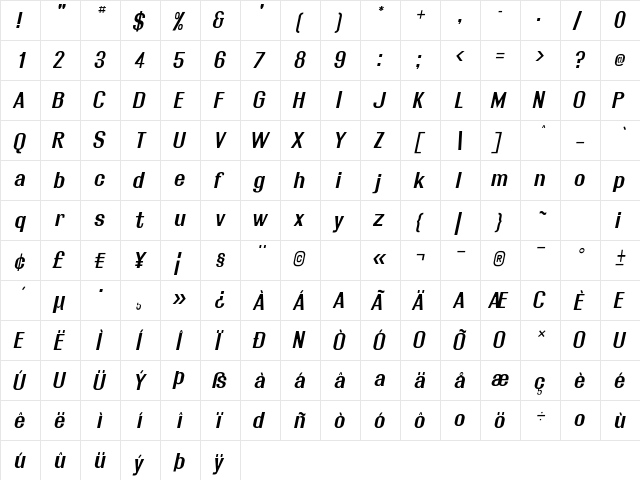
Rollout Semibold Oblique
Design Context for Rollout Typeface
Rollout offers clean, dependable letterforms without strong stylistic allegiance, making it a practical choice for designers who need flexibility. Its italic angle brings a sense of urgency and motion to the letterforms. The heavy weight commands attention and anchors typographic hierarchies.
Pro Tip: Use Rollout for emphasis, pull quotes, and subheadings where its slanted energy can add rhythm to the layout.